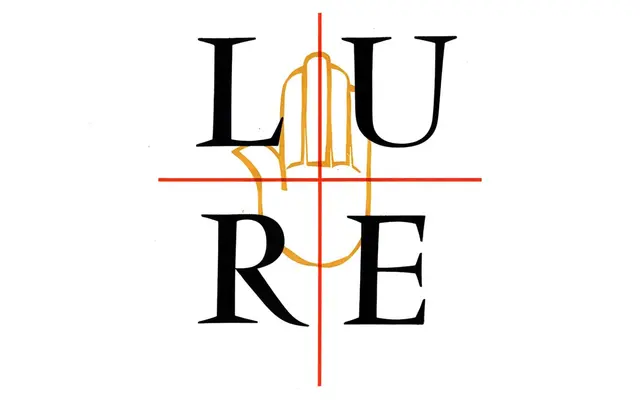
Avec
Sociotype · Hugh Morse · 2025
A serifless Roman in four subfamilies, drawing on Enric Crous-Vidal and the Graphie Latine movement for high contrast, flared strokes and a Latin energy.
A serifless Roman by Hugh Morse, conceived for both display and text in four subfamilies of fourteen styles each. Avec carries the humanist proportions and contrasting stroke weight of a Roman serif but trades the serifs for flared terminals, sharp glyphic points and sweeping cursive curves. The Stencil cut is tuned for headlines, Curve and Sharp suit subheads and large text, and Text holds at sizes as small as 6pt. Each style ships with over 790 glyphs and a variable weight axis, with italics drawn for every weight.
A serifless Roman in the Incised tradition, drawing on the short-lived Graphie Latine movement of the late 1950s and early 60s and on Enric Crous-Vidal's expressive humanist lettering. Retains Roman proportions and contrasting stroke weight without conventional serifs.